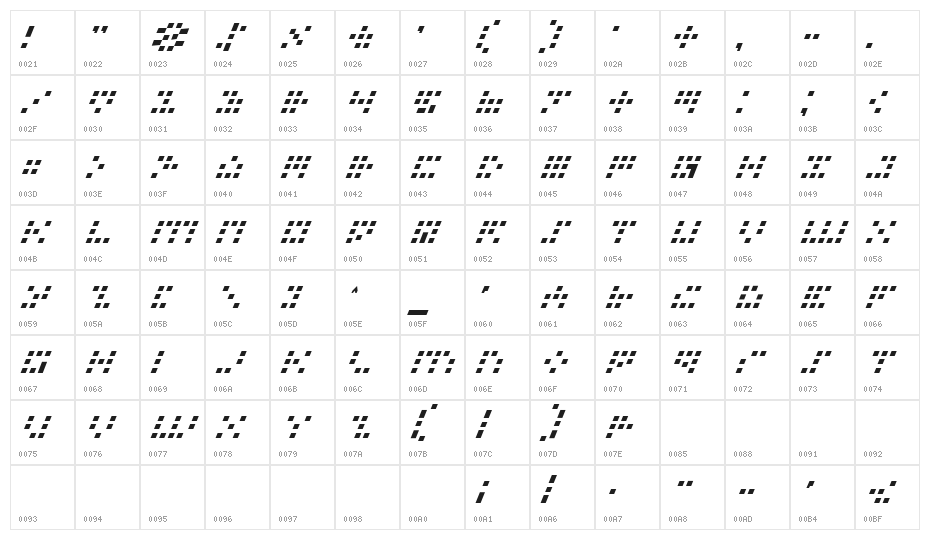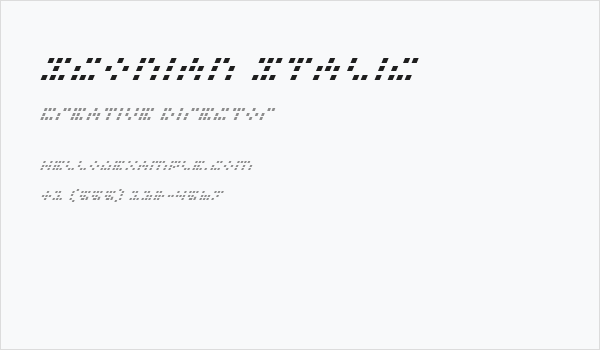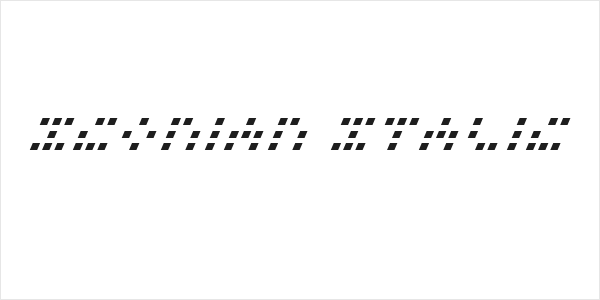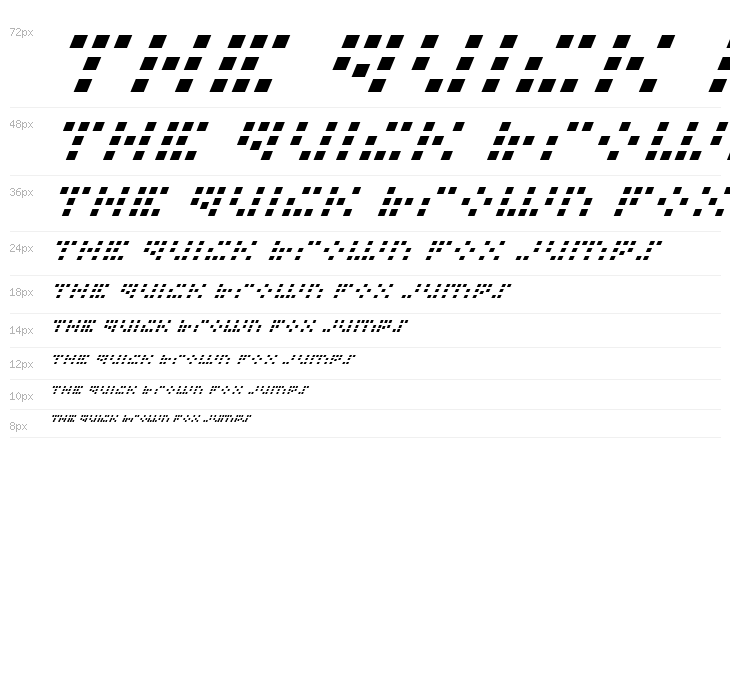
Iconian Italic Font
Iconian Italic Description
This font features a futuristic, digital-inspired design with a distinct italic slant. Each character is composed of small, square blocks arranged in a grid-like pattern, giving it a pixelated appearance. The angular and geometric style is consistent across all characters, creating a cohesive and modern look. The font's unique construction makes it stand out, ideal for projects that require a tech-savvy or avant-garde aesthetic. The spacing between characters is relatively tight, enhancing its compact and efficient design.
| Use Case | Logos, Headlines, Digital interfaces |
| Proposed Projects | Ideal for digital art, video game interfaces, tech branding, and sci-fi themed projects. |